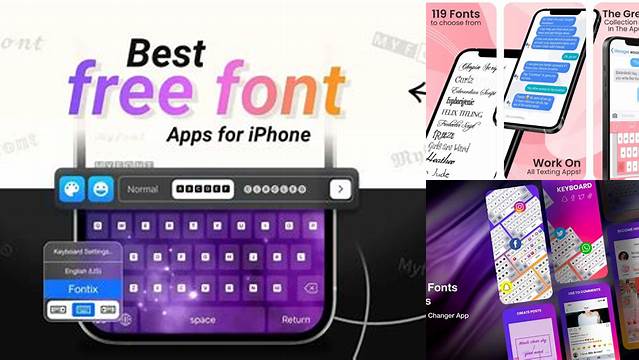
IPhone Font Apps: Free Fonts To Boost Your Content
Hey guys, are you ready to jazz up your iPhone with some awesome fonts? If you're anything like me, you're probably always on the lookout for ways to make your content stand out. Whether it's for your Instagram stories, your killer presentations, or just spicing up your notes, having the right font can make a world of difference. The good news is that you don't need to spend a fortune to get access to some truly amazing fonts. There are tons of best free font apps for iPhones out there that can help you do just that! So, let's dive in and explore some of the top contenders and see what makes them so special.
Why You Need a Free Font App for Your iPhone
Okay, so why bother with a font app in the first place? Well, the default fonts on your iPhone are fine, but they can be a bit... well, boring. If you're looking to inject some personality and flair into your digital life, a font app is your secret weapon. Think about it: you're scrolling through social media, and what catches your eye? Often, it's the visuals, and the font is a huge part of that. Using different fonts can help you:
- Make your content more engaging: A unique font can stop the scroll and grab attention instantly.
- Enhance your brand identity: If you're building a personal brand or a business, the right font can reinforce your message and make you memorable.
- Boost your creativity: Experimenting with different fonts can spark new ideas and help you see your content in a fresh light.
- Simplify the process: Adding fonts to your iPhone can be done using some awesome font apps, and they are easy to use.
Now, I know what you might be thinking: "Free fonts? Are they any good?" The answer is a resounding YES! There are plenty of high-quality, free font apps out there that offer a wide range of styles, from elegant and sophisticated to bold and playful. These apps are constantly being updated with new fonts, so you'll always have fresh options to choose from. Plus, many of them are incredibly user-friendly, making it easy for even the most tech-challenged among us to install and use them. And the best part? They're free, which means you can experiment to your heart's content without breaking the bank. So, let's dive into the best free font apps for iPhones and find out which ones are the perfect fit for you!
Top Contenders: The Best Free Font Apps
Alright, let's get down to brass tacks and take a look at some of the best free font apps for iPhones. I've rounded up some of the top-rated and most popular options, so you can find the perfect one to suit your needs. We will explore their features, ease of use, and any unique benefits they offer. Let's jump into it!
iFont
iFont is a top-tier choice for anyone who wants to add cool fonts to their iPhone. What's great about iFont is its simplicity. Installing new fonts is a breeze, and the app walks you through the process step by step. The interface is clean and intuitive, so you won't get lost in menus or settings. iFont supports a massive library of fonts, including OpenType and TrueType fonts. This means you have a vast range of styles at your fingertips, from classic serifs to modern sans-serifs and everything in between. You can use these fonts in a variety of apps, including Pages, Keynote, and other apps that support font installation. The app also allows you to manage your fonts easily. You can install, remove, and organize your fonts to keep everything tidy. Plus, it offers a preview function, so you can see how a font looks before you commit to using it. The app is free to download, and while it does offer in-app purchases for premium features, the free version provides plenty of options to get you started. iFont is an excellent all-around choice if you want a simple, reliable way to add fonts to your iPhone. It's user-friendly, offers a great selection of fonts, and makes the installation process a piece of cake. If you're new to the world of custom fonts, iFont is a great place to start. It's easy to use and has a wide array of options for you to choose from.
AnyFont
AnyFont is another excellent option for those who want to expand their font library. This app focuses on providing a seamless and efficient font management experience. One of the standout features of AnyFont is its ability to install fonts directly from various sources. You can download fonts from the web, import them from cloud storage services, or even receive them via email. This flexibility makes it easy to add fonts from any source you like. AnyFont supports a wide range of font file types, including TrueType (.ttf), OpenType (.otf), and even TrueType Collection (.ttc) files. This gives you access to a vast collection of fonts from different sources. The app provides a preview function, allowing you to see how each font looks before you install it. This helps you choose the right fonts for your projects. AnyFont is designed with ease of use in mind. The installation process is straightforward, and the app guides you through each step. Once you've installed your fonts, you can use them in apps like Pages, Keynote, and other compatible applications. The app also includes font management features, so you can easily organize and remove fonts as needed. AnyFont is a fantastic choice for anyone who wants a simple and efficient way to install and manage fonts on their iPhone. Its support for various font file types and easy installation process makes it a great app for both beginners and font enthusiasts. Plus, it is free, so there's nothing stopping you from giving it a try and expanding your font collection.
Fontcase
Fontcase takes a slightly different approach, focusing on providing a curated selection of fonts. Instead of offering a massive library, Fontcase focuses on high-quality fonts that are designed to look great on your iPhone. This app is perfect for those who want a more streamlined experience, without having to sift through hundreds of fonts. The fonts are organized into categories, making it easy to find the right style for your project. Whether you're looking for a playful script, a clean sans-serif, or an elegant serif, Fontcase has you covered. Fontcase is all about ease of use. The app makes installing fonts simple, and the fonts are readily available for use in your favorite apps like Pages, Keynote, and more. Fontcase offers a preview function, so you can see how each font looks before you install it. This helps you choose the right fonts for your projects. The app is also optimized for iOS, which means it's designed to look and work great on your iPhone. Fontcase is the perfect choice for users who want a curated selection of high-quality fonts. If you're looking for a streamlined experience without the endless scrolling, Fontcase is a great option. It's user-friendly, offers a great selection of fonts, and makes the installation process a breeze.
Font Diner
If you're after a fun, quirky, and unique selection of fonts, Font Diner is the app for you. It specializes in retro and vintage-style fonts, perfect for adding a touch of nostalgia to your designs. This app is ideal if you're working on projects that need a classic, retro feel. The fonts are designed to look great on your iPhone. The fonts are organized into categories, making it easy to find the right style for your project. Whether you're looking for a playful script, a clean sans-serif, or an elegant serif, Font Diner has you covered. Font Diner is all about ease of use. The app makes installing fonts simple, and the fonts are readily available for use in your favorite apps like Pages, Keynote, and more. Font Diner offers a preview function, so you can see how each font looks before you install it. This helps you choose the right fonts for your projects. Font Diner is the perfect choice for users who want a curated selection of retro-style fonts. If you're looking for a streamlined experience without the endless scrolling, Font Diner is a great option. It's user-friendly, offers a great selection of fonts, and makes the installation process a breeze.